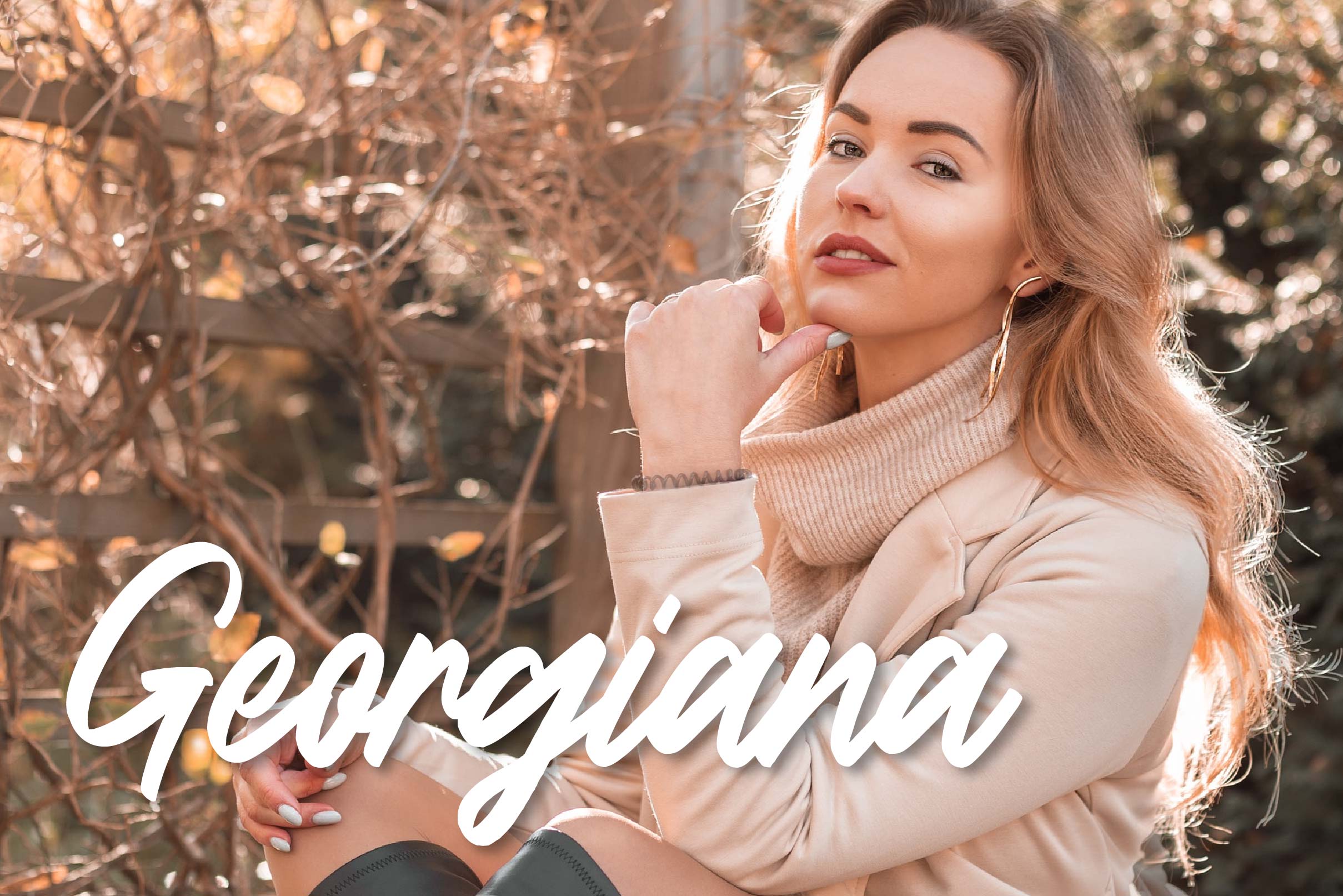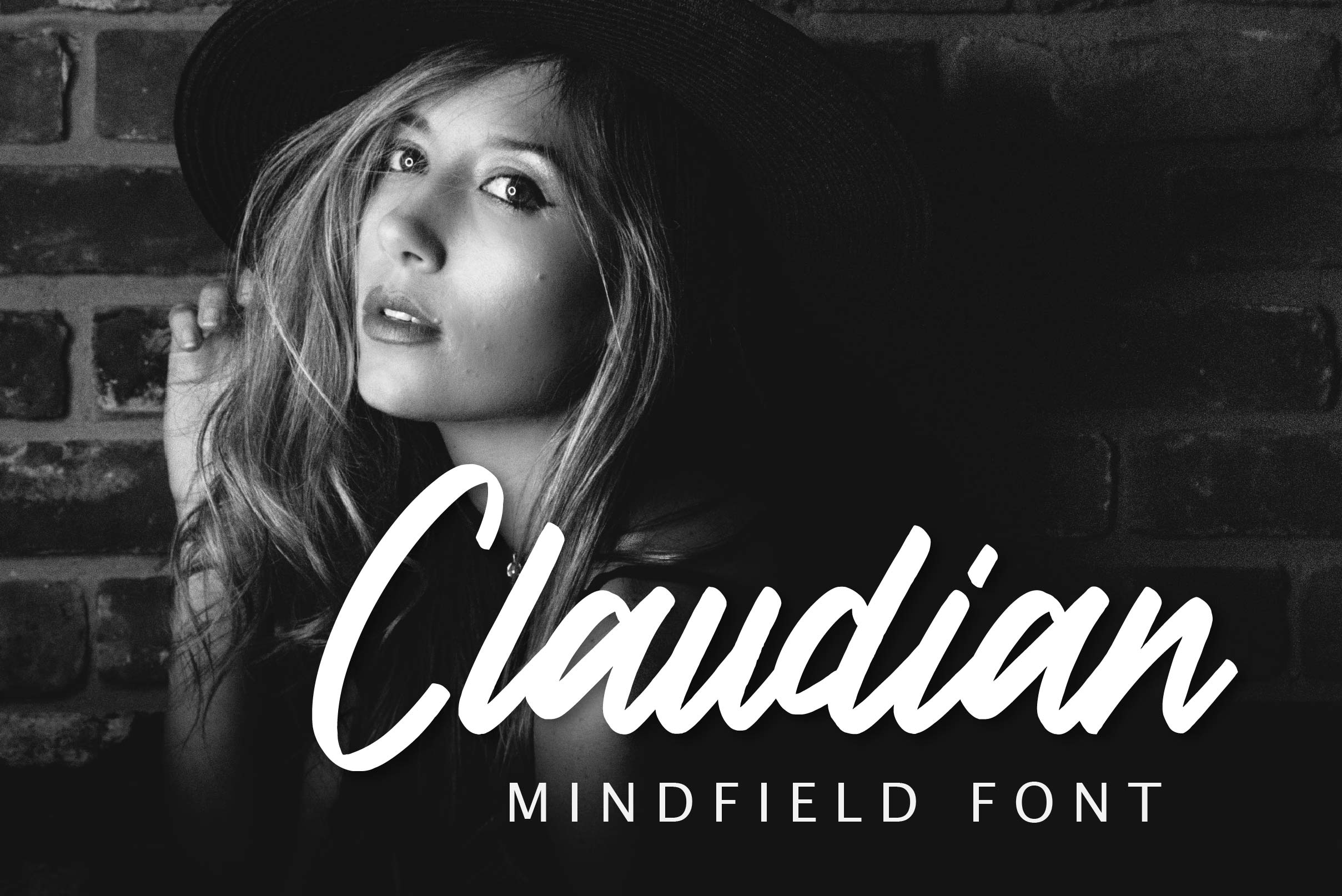
Mindfield Script Font
Mindfield Font is a delicate, elegant, and flowing handwritten font. It has beautiful and well-balanced characters, and as a result, it matches a wide pool of designs. Bianca is PUA encoded, which means you can access all of the glyphs and swashes with ease!
– Uppercase, Lowercase, Numeral & Punctuation
– Alternate Letters, Ligature & Swash/Tail
– Multilingual & PUA Encoded